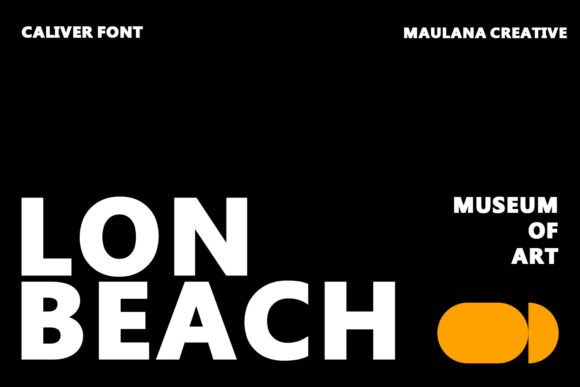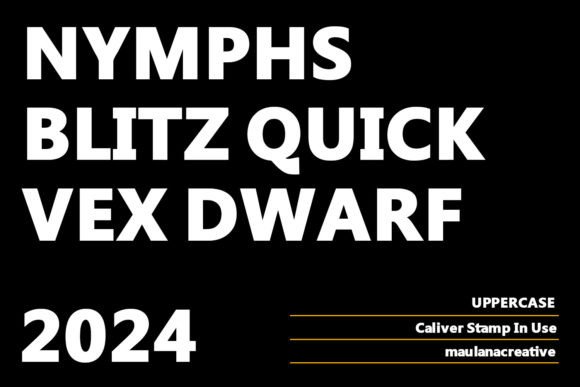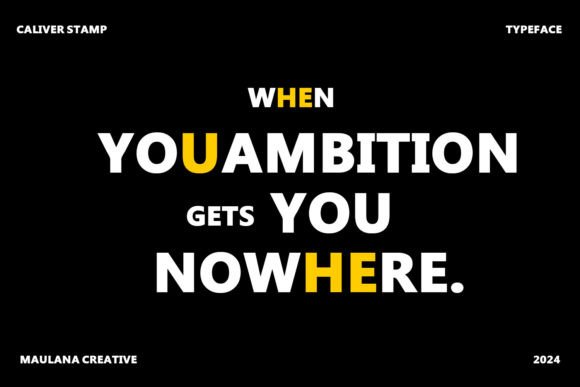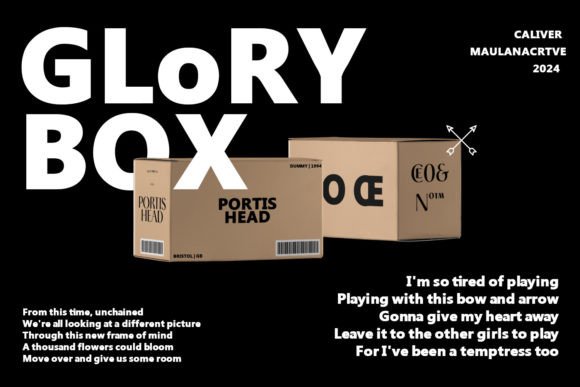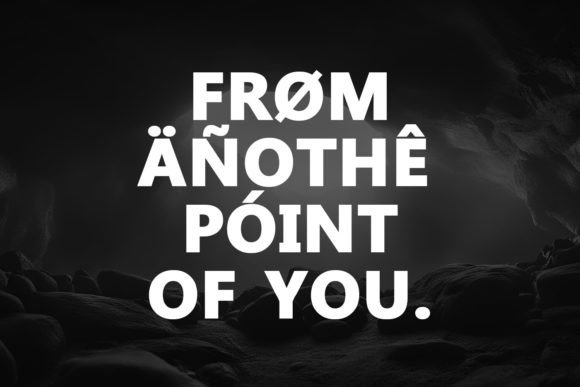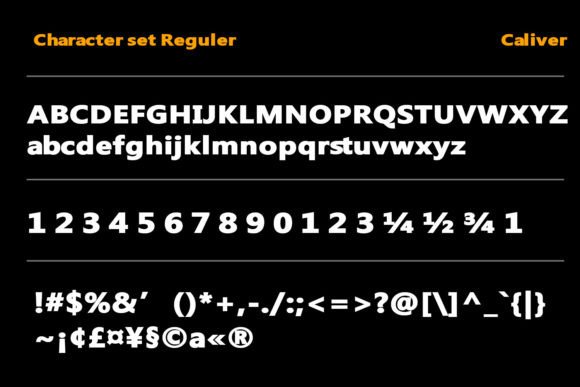
Introducing Caliver Stamp Font: The Ultimate Choice for Modern Designs
In the world of typography, fonts play a crucial role in conveying messages, expressing emotions, and creating visual identities. For designers and crafters, finding the perfect font can be a daunting task, especially when looking for something that exudes simplicity, boldness, and style. This is where Caliver Stamp Font comes into play – a modern, clean, and stylish font that has been making waves in the design community.
What is Caliver Stamp Font?
Caliver Stamp Font is a contemporary typeface that boasts a simple, yet bold design. Its clean lines and unadorned aesthetic give it a fresh and minimalist look, reminiscent of stamped impressions. This font is perfect for designers who want to create a strong, straightforward visual impact without the clutter of extra decorations.
Key Features of Caliver Stamp Font
- Modern and Clean Design: Caliver Stamp Font features a sleek and modern design that is free from unnecessary embellishments, making it perfect for contemporary designs.
- Simple yet Bold: The font’s bold design ensures that your text stands out, while its simplicity keeps the focus on the message.
- Stamped Look: The font’s unique style gives it a stamped appearance, adding a touch of industrial chic to your designs.
- Versatile: Caliver Stamp Font can be used across various design projects, from branding and advertising to packaging and digital media.
Who Can Benefit from Caliver Stamp Font?
Caliver Stamp Font is an excellent choice for a wide range of designers and crafters, including:
- Graphic Designers: Those working on branding, logo design, and marketing materials will find Caliver Stamp Font to be a valuable addition to their typography arsenal.
- Crafters: Crafters who create handmade products, such as jewelry, candles, or artwork, can use Caliver Stamp Font to add a professional touch to their packaging and marketing materials.
- Digital Artists: Digital artists and illustrators can use Caliver Stamp Font to create striking text effects and add depth to their artwork.
Tips for Using Caliver Stamp Font
To get the most out of Caliver Stamp Font, consider the following tips:
- Pair with Contrasting Fonts: Combine Caliver Stamp Font with contrasting fonts to create visual interest and hierarchy in your designs.
- Experiment with Colors: Try out different colors and textures to add depth and dimension to your text.
- Use for Headings and Titles: Caliver Stamp Font is perfect for headings and titles, where a bold and striking font is needed to grab attention.
Caliver Stamp Font is a versatile and stylish typeface that can elevate your designs to the next level. Its modern, clean, and bold design makes it an excellent choice for designers and crafters looking to create a strong visual impact. Whether you’re working on a branding project, crafting marketing materials, or creating digital art, Caliver Stamp Font is sure to become a go-to font in your collection.
Get Creative with Caliver Stamp Font